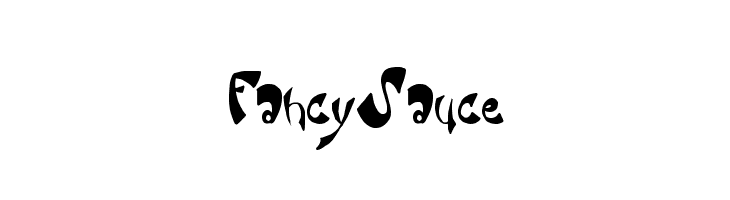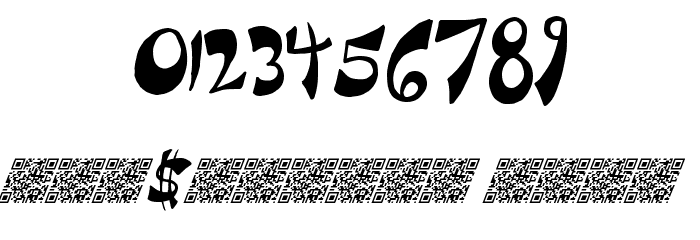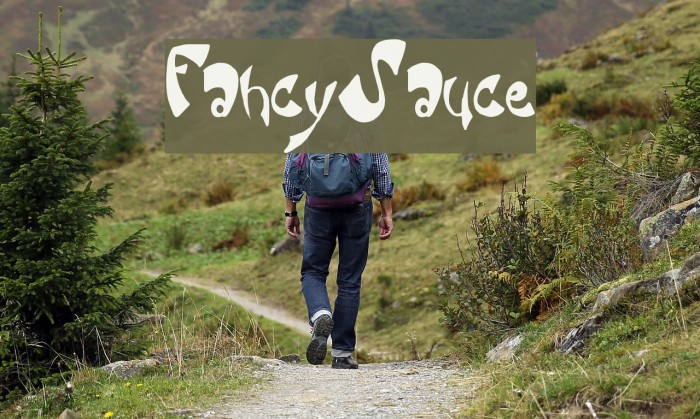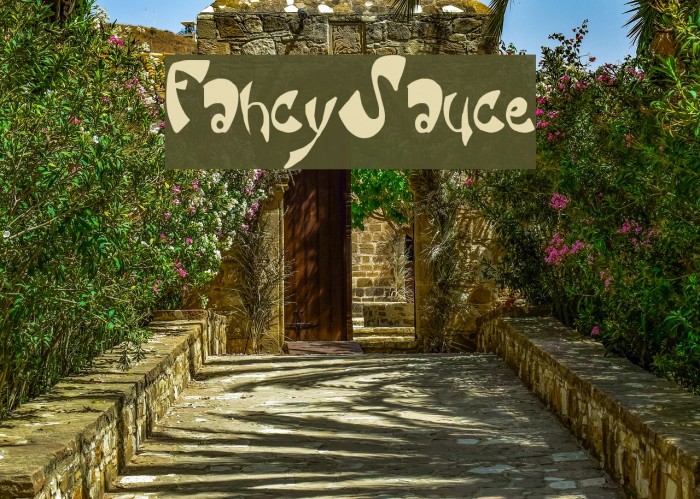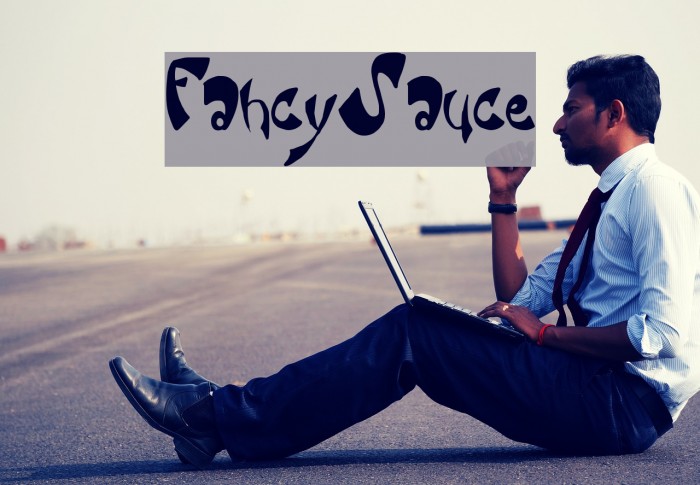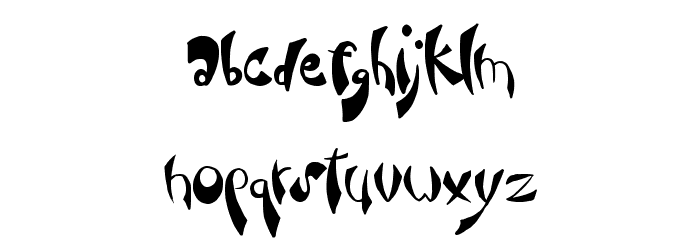
FancySauce Font
FancySauce Description
This font features a unique and artistic style with a playful and whimsical appearance. The characters are bold and have a hand-drawn quality, with irregular shapes and varying stroke thicknesses that give it a dynamic and lively feel. The uppercase letters are particularly striking, with exaggerated curves and angles that create a sense of movement. The lowercase letters maintain the same playful aesthetic, though they are slightly more subdued. Numbers and special characters are consistent with the overall style, ensuring a cohesive look across all text. This font is ideal for projects that require a fun and creative touch, such as children's books, posters, or branding for playful products.